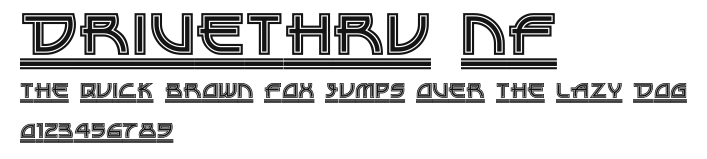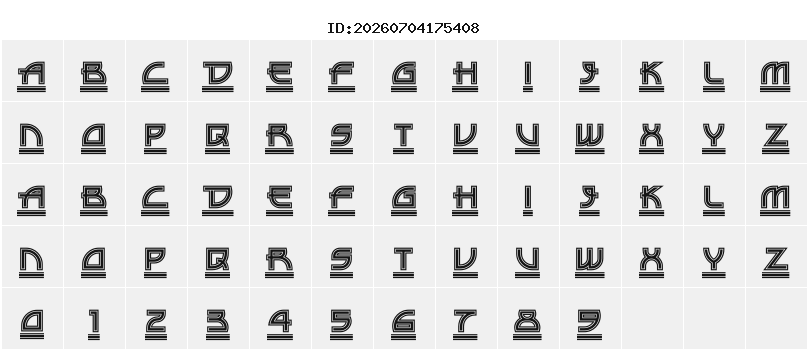
• Font Name: DriveThru NF
• Designer: Nick Curtis
• Manufacturer: Nick's Fonts
About DriveThru NF.ttf
DriveThru NF.ttf is a modern, elegant sans-serif font designed for ultimate readability and visual harmony. Perfect for branding, headlines, web design, and print materials.